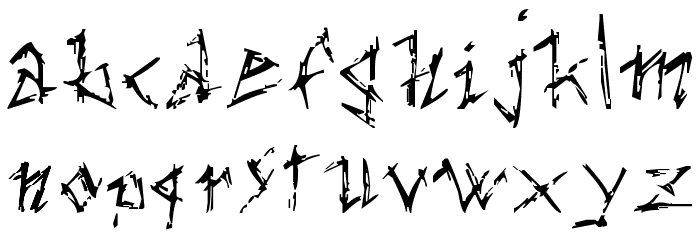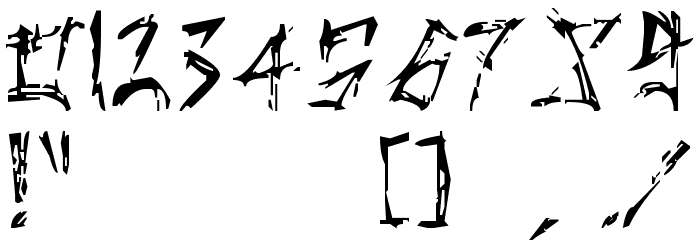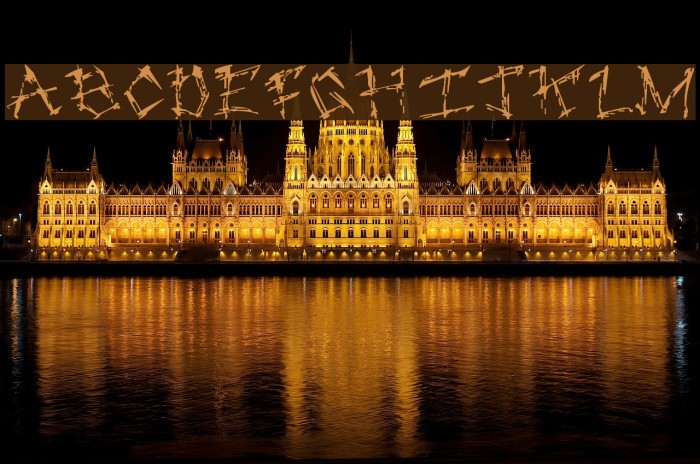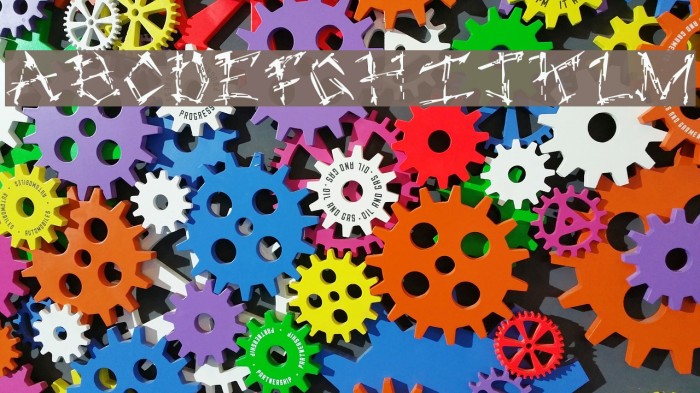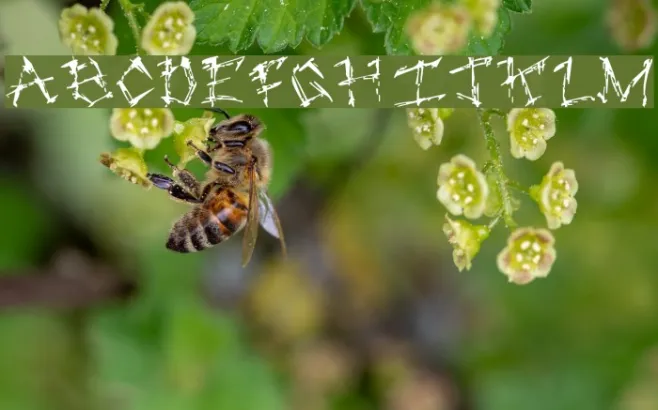
the dark ages Font
This font features a rugged, distressed appearance reminiscent of medieval or gothic themes. The characters are jagged and uneven, with a hand-drawn quality that suggests a sense of chaos and mystery. The uppercase and lowercase letters maintain a consistent style, with sharp angles and irregular edges, creating a visually striking effect. Numbers and special characters follow the same aesthetic, adding to the overall cohesion of the font. The design is bold and attention-grabbing, making it suitable for projects that require a dramatic and edgy look.
A rugged, distressed font with a gothic, hand-drawn style.
- Proposed Projects: Ideal for horror-themed posters, video game titles, Halloween invitations, and any project needing a dark, mysterious vibe.
- Overall Style: Gothic, Distressed
- Use Case: Headlines, Posters, Themed Events